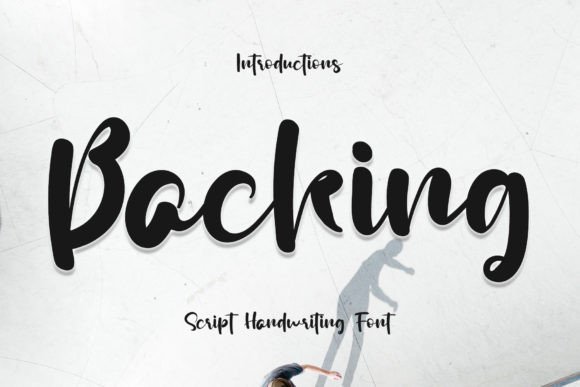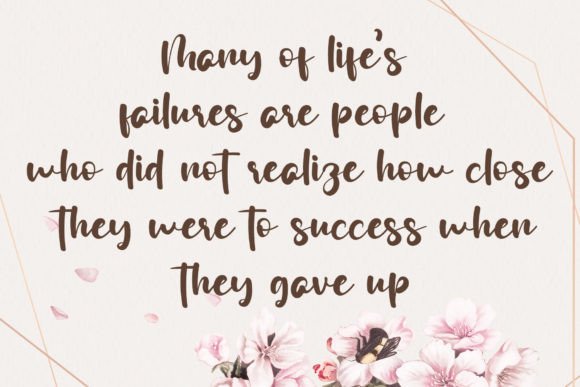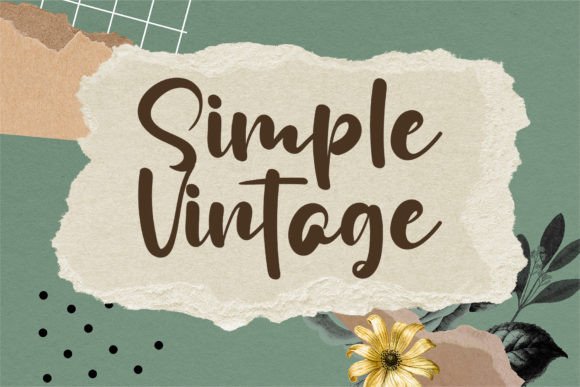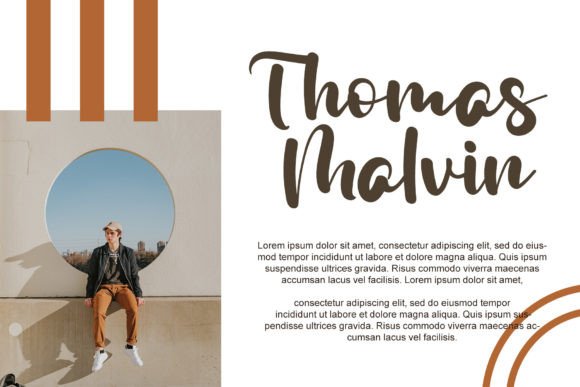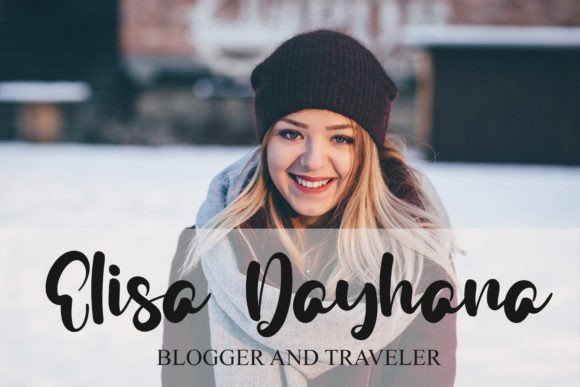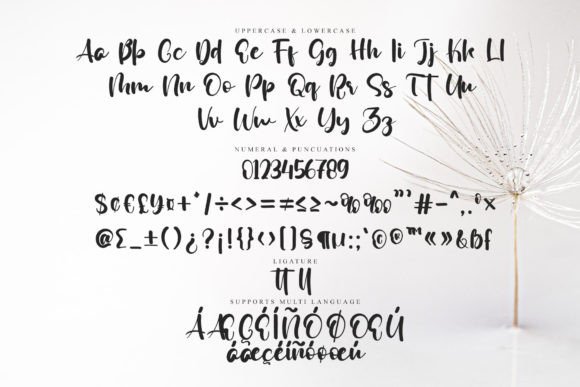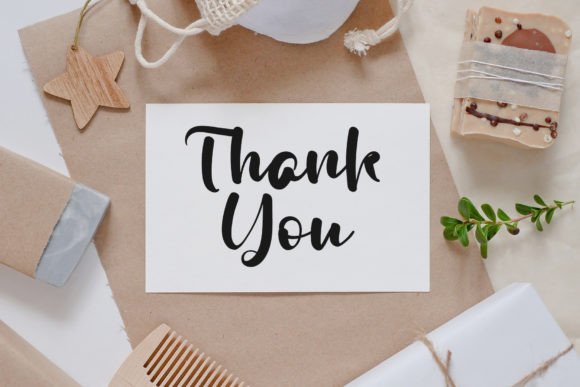
Backing Font
The Backing Font Download is a stylish handwritten script with a modern yet classic atmosphere. Inspired by timeless calligraphy, this font blends balance, elegance, and a personal handwritten touch. Its graceful strokes and versatile design make it perfect for both professional and personal projects. Whether you design invitations, logos, or digital content, Backing adds refinement and beauty.
A Handwritten Script with Classic Inspiration
The Backing script font combines the elegance of calligraphy with the charm of modern handwritten design. As a result, it feels sophisticated and approachable. Furthermore, it adapts seamlessly to branding, stationery, and creative digital layouts, which makes it a flexible option for designers.
Handwritten fonts always bring warmth and elegance to personal projects. The Backing Font is ideal for wedding invitations, thank you notes, birthday cards, and seasonal greetings. Because of its smooth handwritten rhythm, each card feels polished and heartfelt. In addition, it ensures your stationery stands out with timeless charm.
Branding and Logo Design with Backing Font
Typography plays a key role in shaping brand identity. The Backing handwritten font is excellent for boutique logos, product packaging, and promotional campaigns. Its stylish handwritten strokes create a professional yet personal tone. Therefore, it is a strong choice for fashion, lifestyle, and creative businesses.
Posters, Titles, and Editorial Displays
The Backing Font Download also works beautifully in posters, magazines, banners, and book covers. It keeps its clarity across all sizes while adding a stylish handwritten energy. Consequently, it is dependable for designers looking for readability and artistic flair together.
In today’s online world, fonts must look engaging and adaptable. The Backing typeface integrates smoothly into Instagram posts, YouTube thumbnails, Pinterest graphics, and blogs. Because of its calligraphy-inspired handwritten style, it ensures digital projects remain elegant and eye-catching.
Why Designers Choose Backing Typeface
Designers love fonts that balance sophistication with usability. The Backing handwritten script maintains its classic inspiration while staying easy to read. This makes it useful for professionals and hobbyists alike. Moreover, its timeless handwritten form ensures it will remain relevant across future projects.
Add Stylish Elegance to Your Projects Today